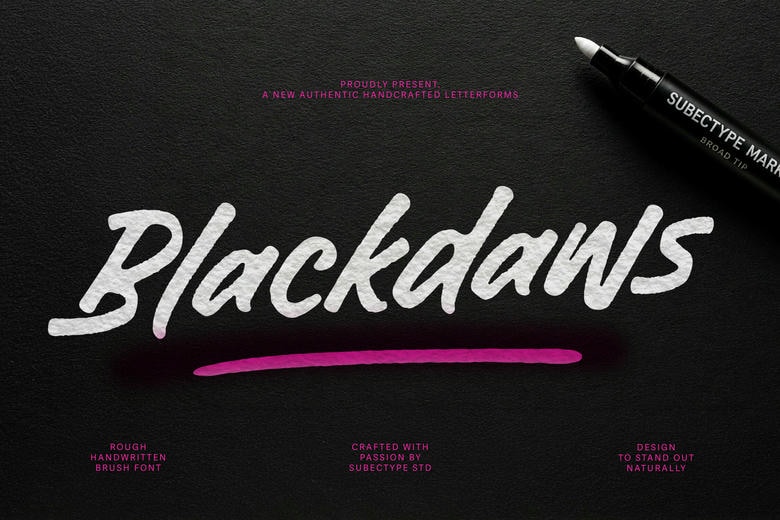
Blackdaws Font
Blackdaws is a rough handwritten font with naturally separated letters that give it the look of real handwriting. Its textured finish and clear design make each word feel genuine and expressive. Its non-connected writing style creates a casual yet versatile appearance, making it suitable for branding and logos.
The non-connected style gives it a casual and versatile look, so it works well for branding, logos, packaging, labels, posters, social media, YouTube thumbnails, apparel, quotes, stationery, greeting cards, invitations, and modern editorial designs. Handcrafted details add warmth and originality, while the font stays easy to read in both print and digital formats.
Blackdaws Handwritten Script Font